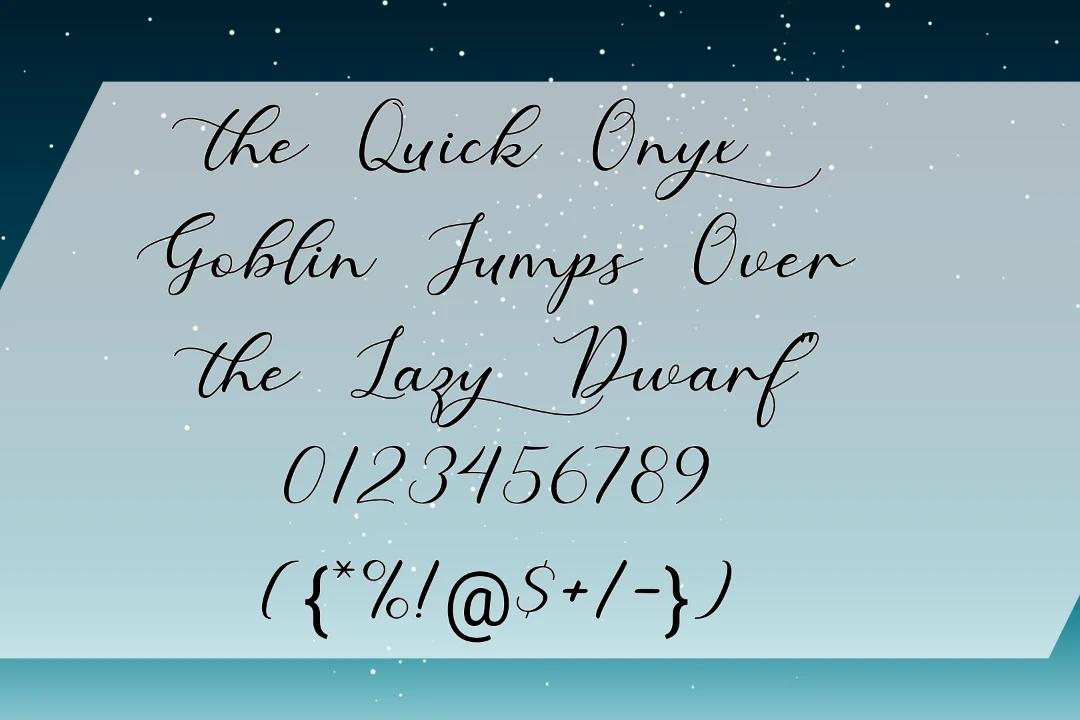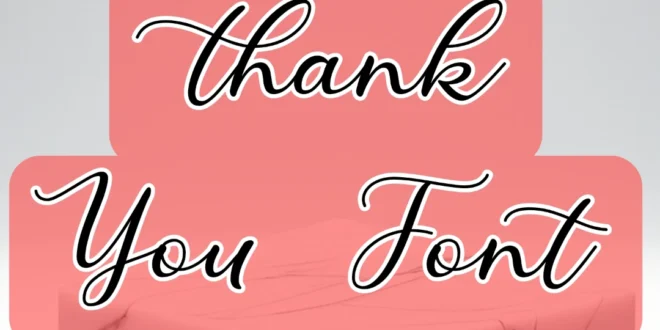
The Thank You Font is a unique and expressive typeface popular for conveying gratitude and creating a friendly, approachable feel in designs.
Designed by Graphix Line Studio, it belongs to the calligraphy category, featuring a script style with flowing, handwritten elements that enhance its warmth.
You can pair it with its aesthetic appeal, making it a top choice among designers for projects that require an emotional and engaging touch.
Uses of Thank You Font
It is perfect for designing invitations and greeting cards where a personal feel is essential. Its flowing script and cursive letters evoke sincerity and warmth, adding depth to any message of appreciation or special occasion.
Many designers use this texture for logos, banners, and social media posts due to its ability to convey authenticity.
| Designer | Graphix Line Studio |
| Style | Script |
What makes the Thank You typeface unique?
Its script style and hand-lettered appearance make it unique, adding warmth and a personal touch ideal for any gratitude-themed design.